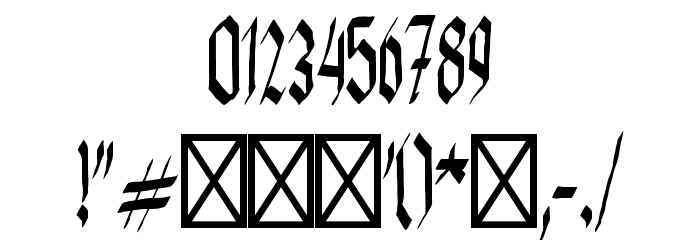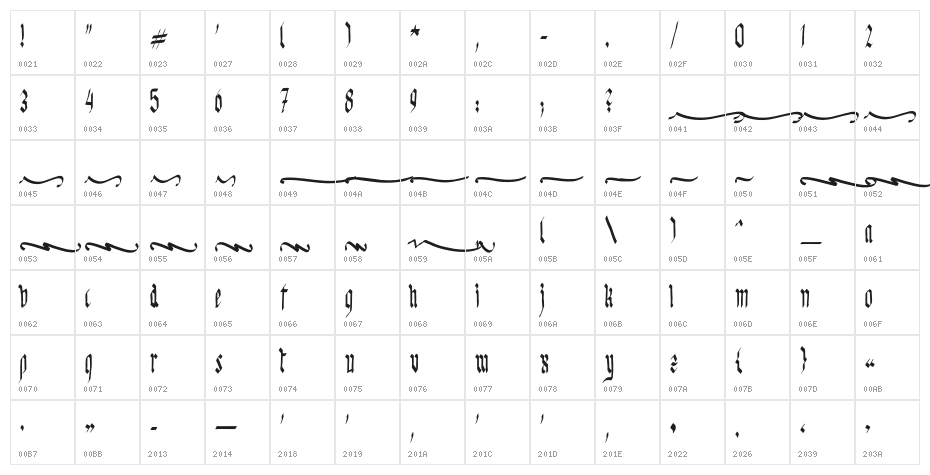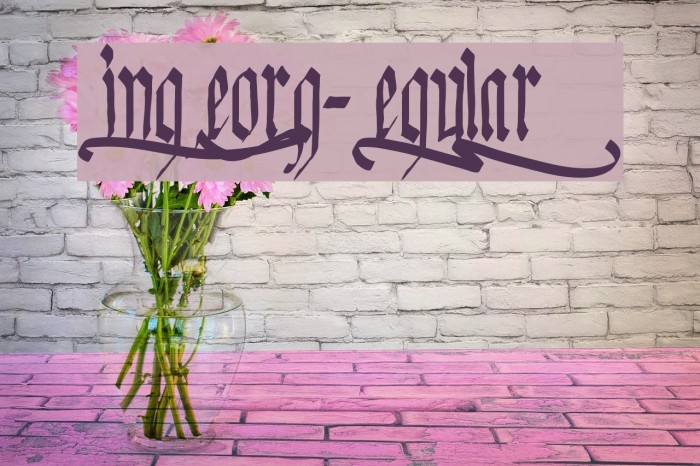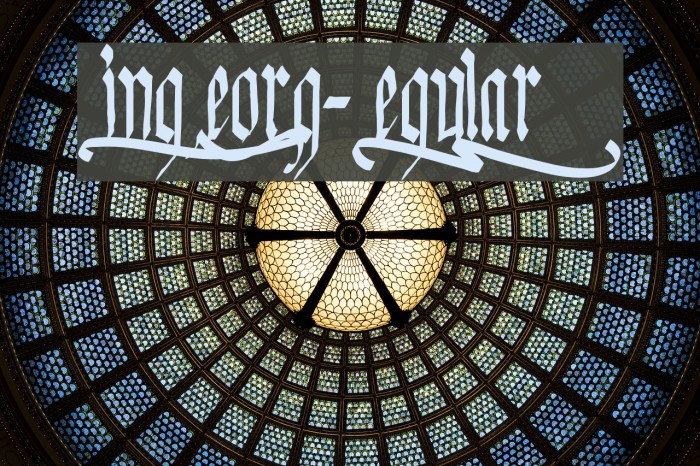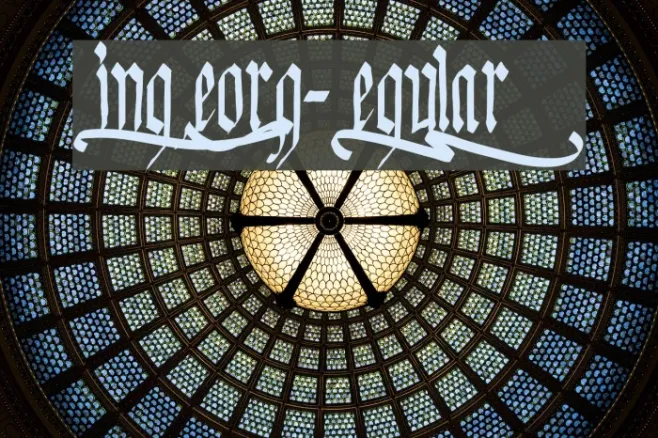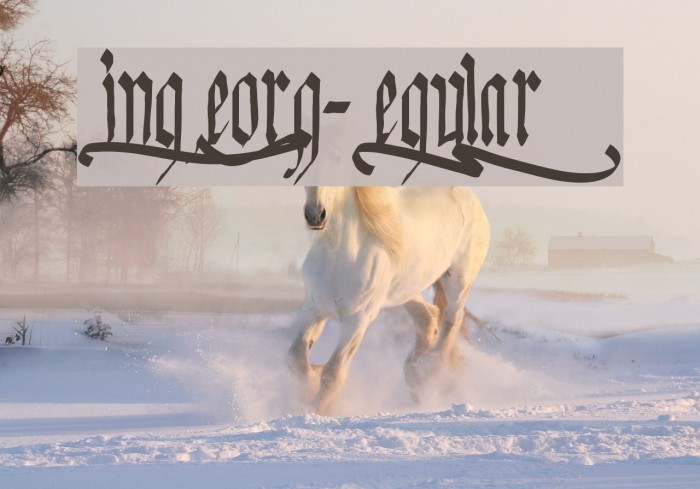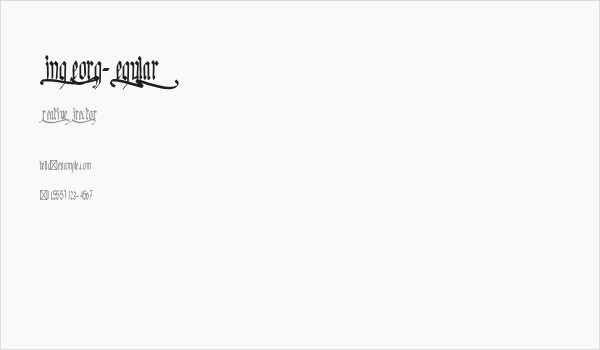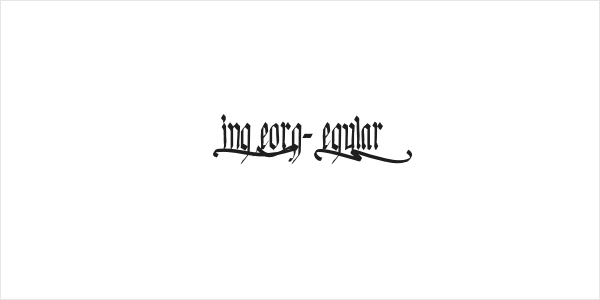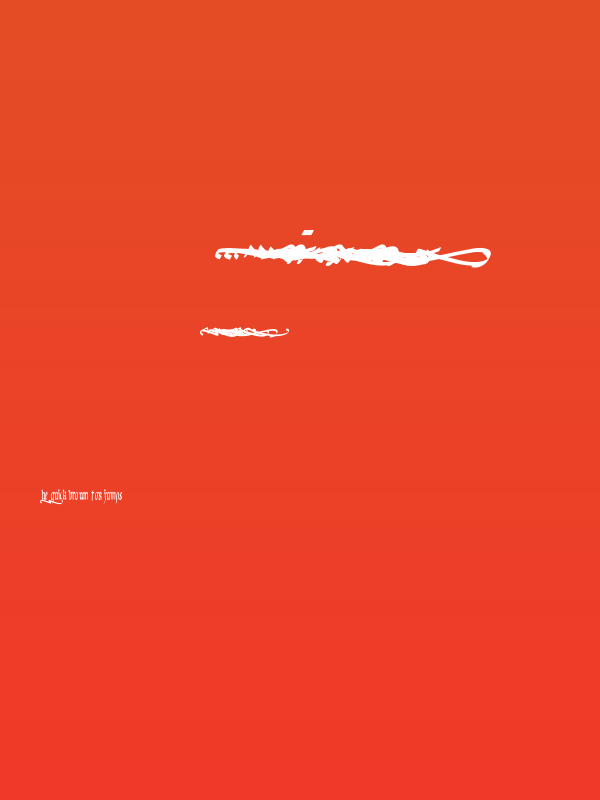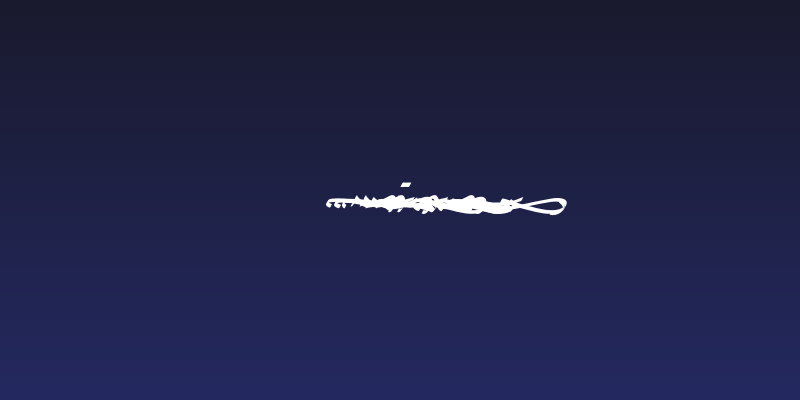
KingGeorg-Regular Font
KingGeorg-Regular Description
This font features a distinct blackletter style, characterized by its sharp, angular lines and intricate detailing. The uppercase and lowercase letters exhibit a traditional Gothic influence, with a strong emphasis on vertical strokes and pointed serifs. The numbers maintain the same stylistic elements, ensuring consistency throughout. Special characters are designed with similar ornate features, adding to the overall medieval aesthetic. This font is ideal for projects that require a historical or dramatic flair, offering a bold and eye-catching appearance.
| Proposed Projects | Ideal for historical documents, themed event invitations, book covers, or branding that requires a medieval or dramatic touch. |